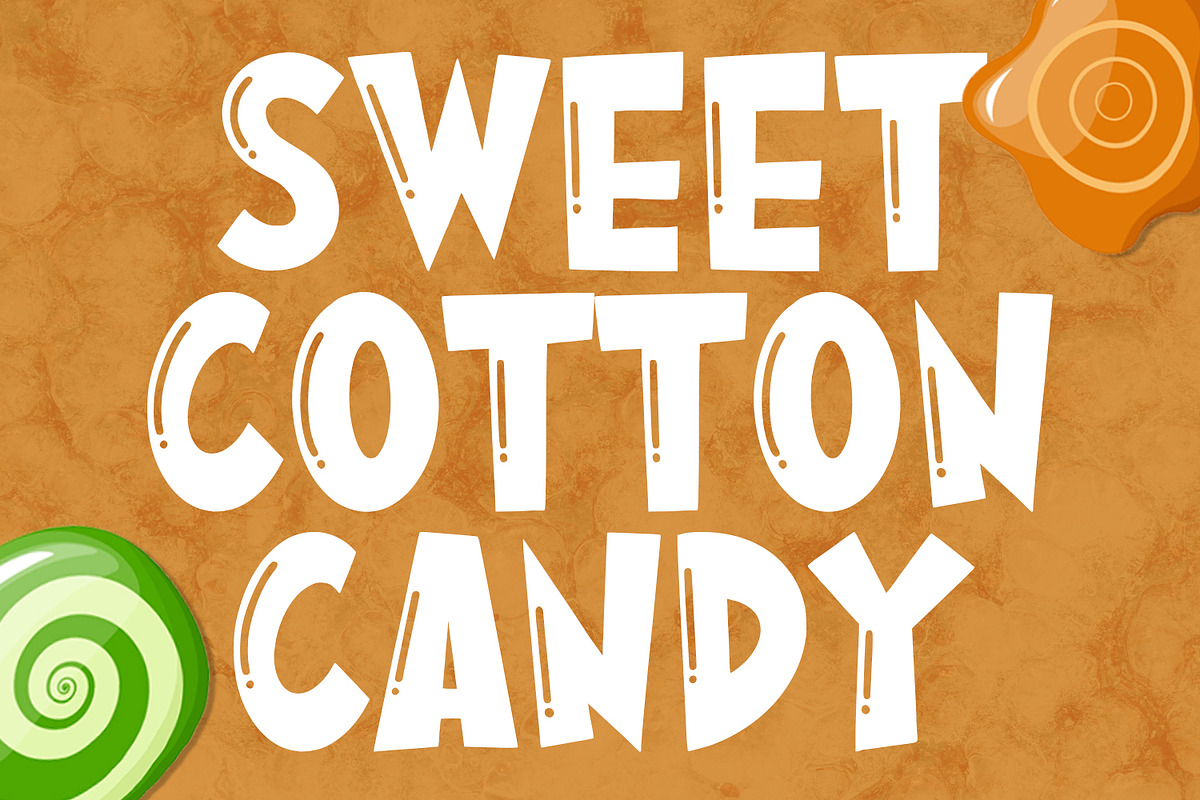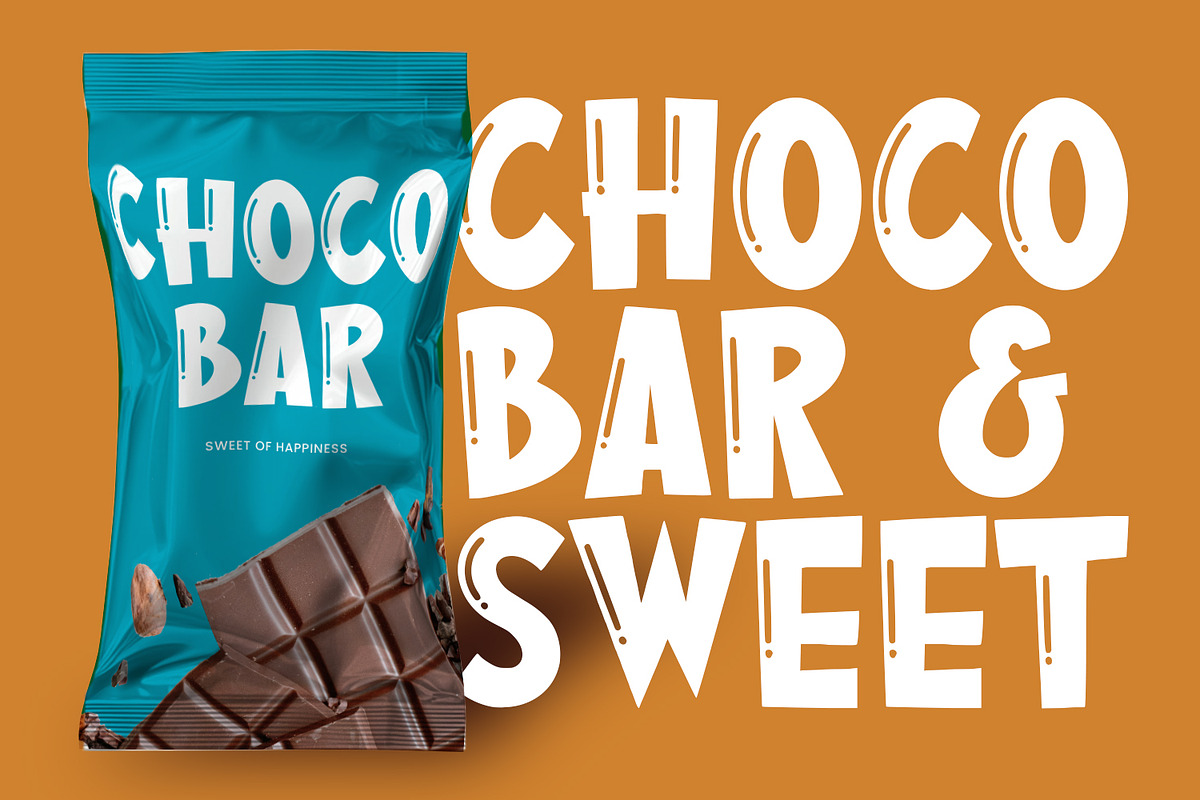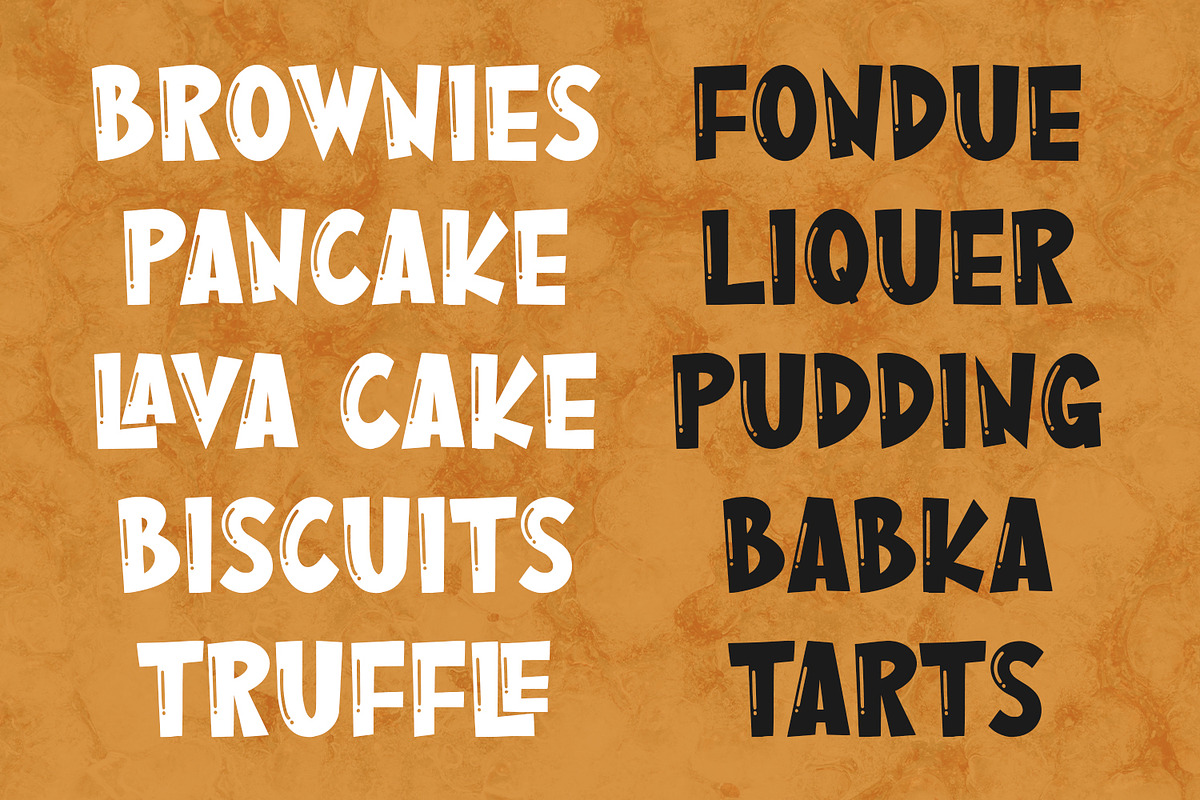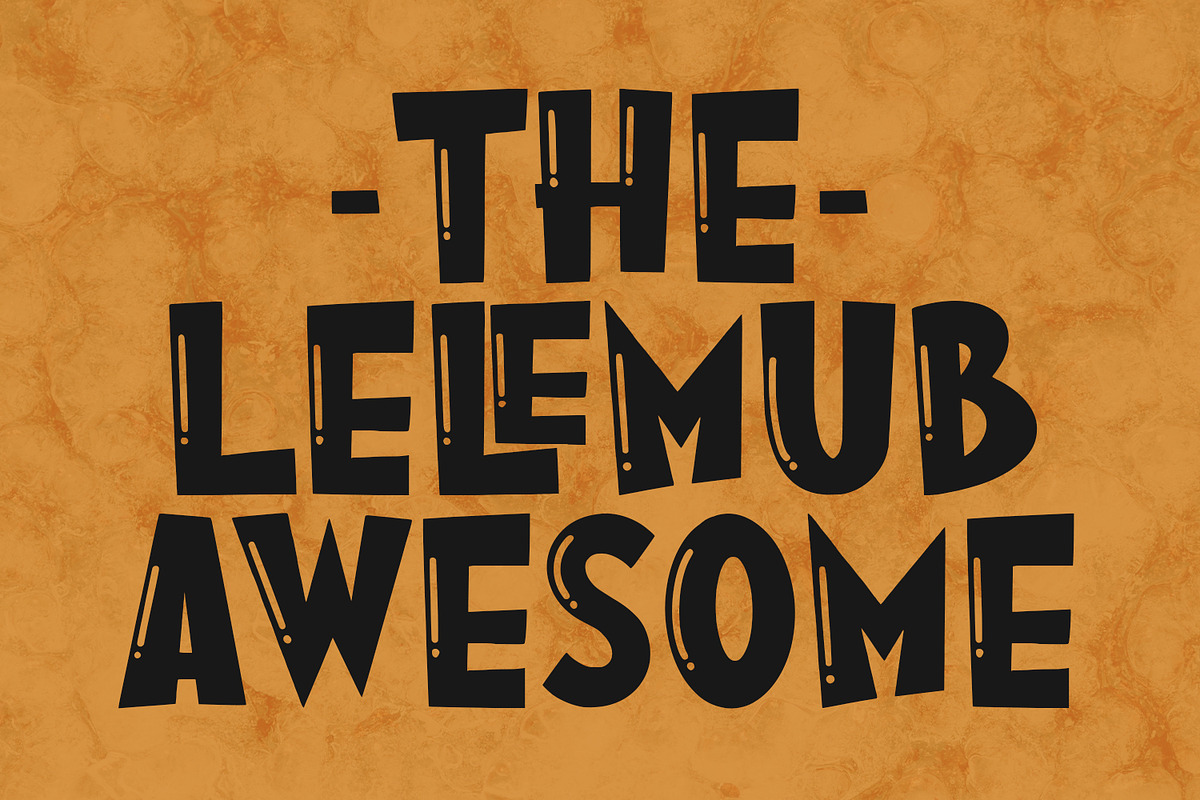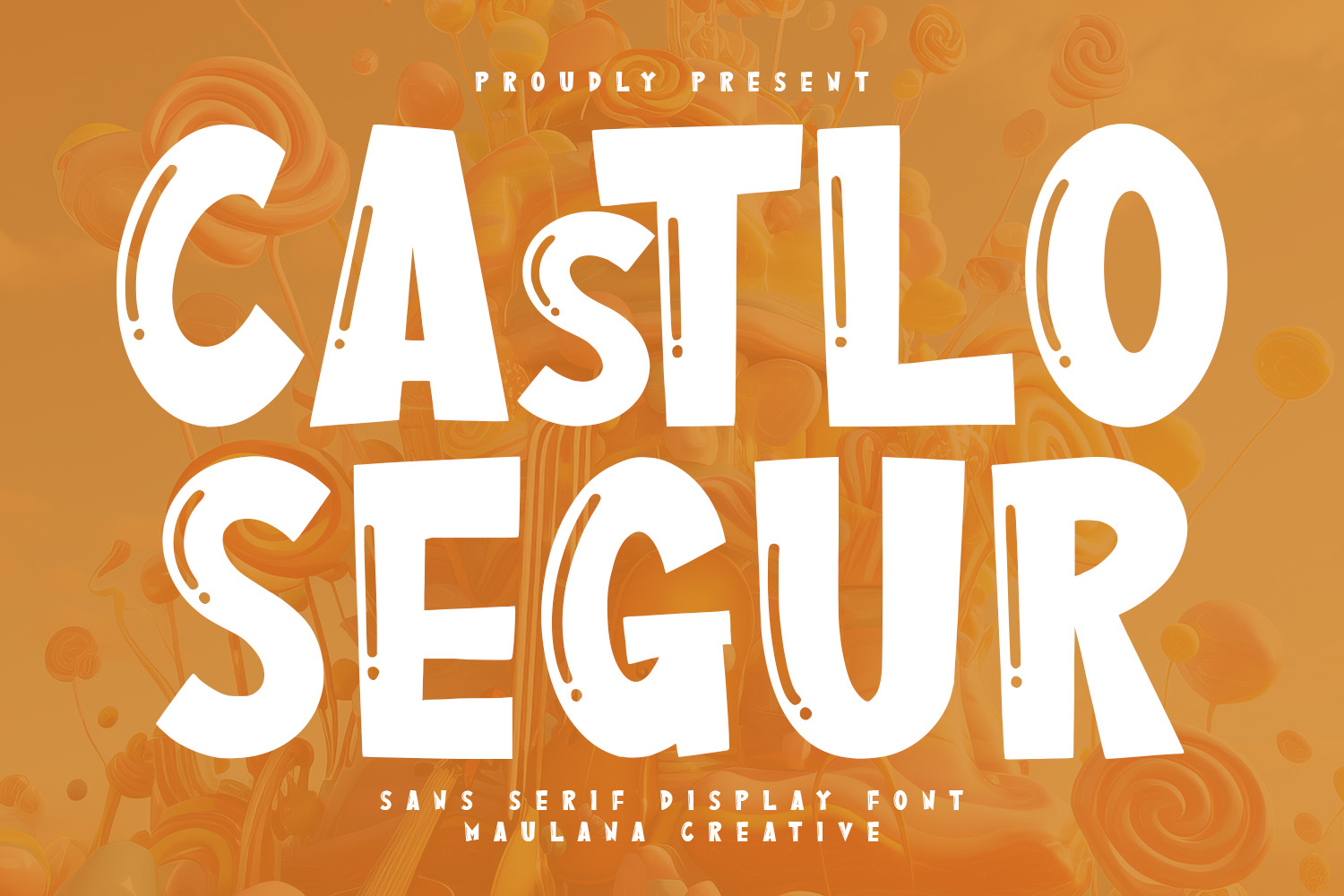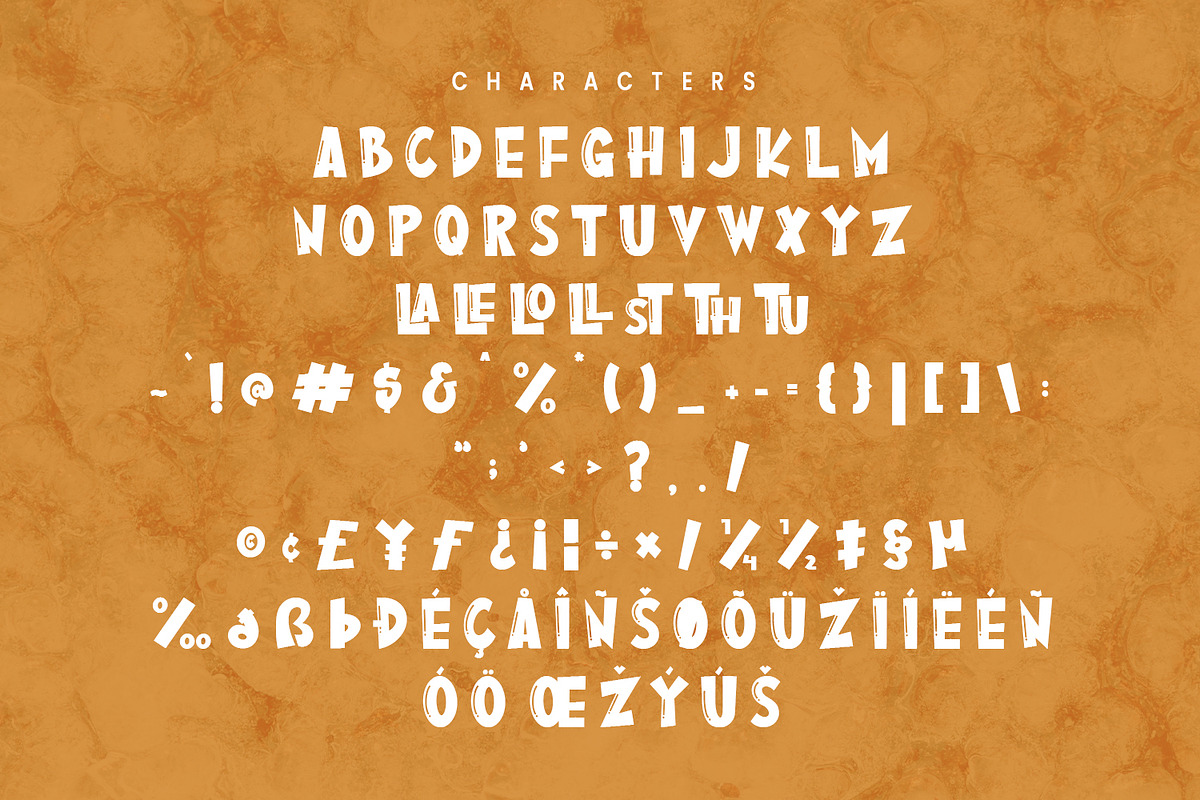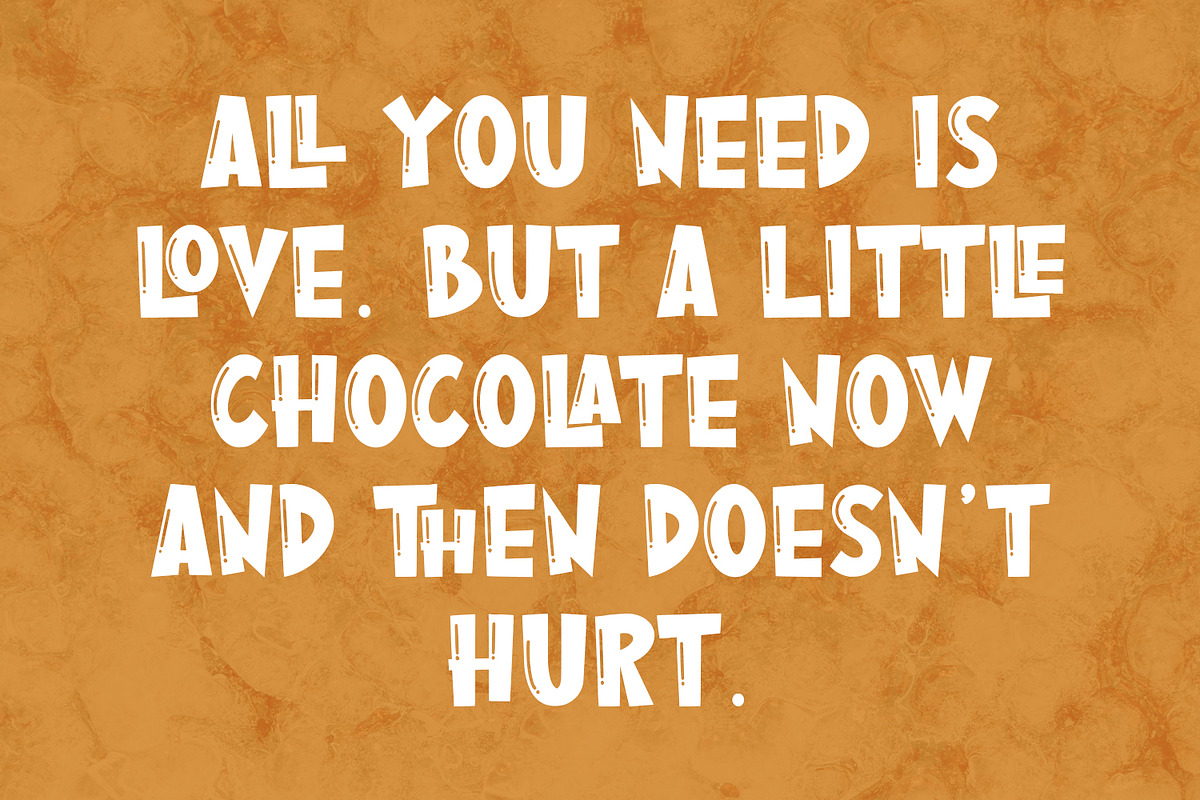
Castlo Segur Sans Serif Display Font
Castlo Segur is a sans serif display handwritten font. With bold stroke, fun character with a bit of ligatures. To give you an extra creative work. Castlo Segur font support multilingual more than 100+ language. This font is good for logo design, Social media, Movie Titles, Books Titles, a short text even a long text letter and good for your secondary text font with sans or serif. Make a stunning work with Castlo Segur font.